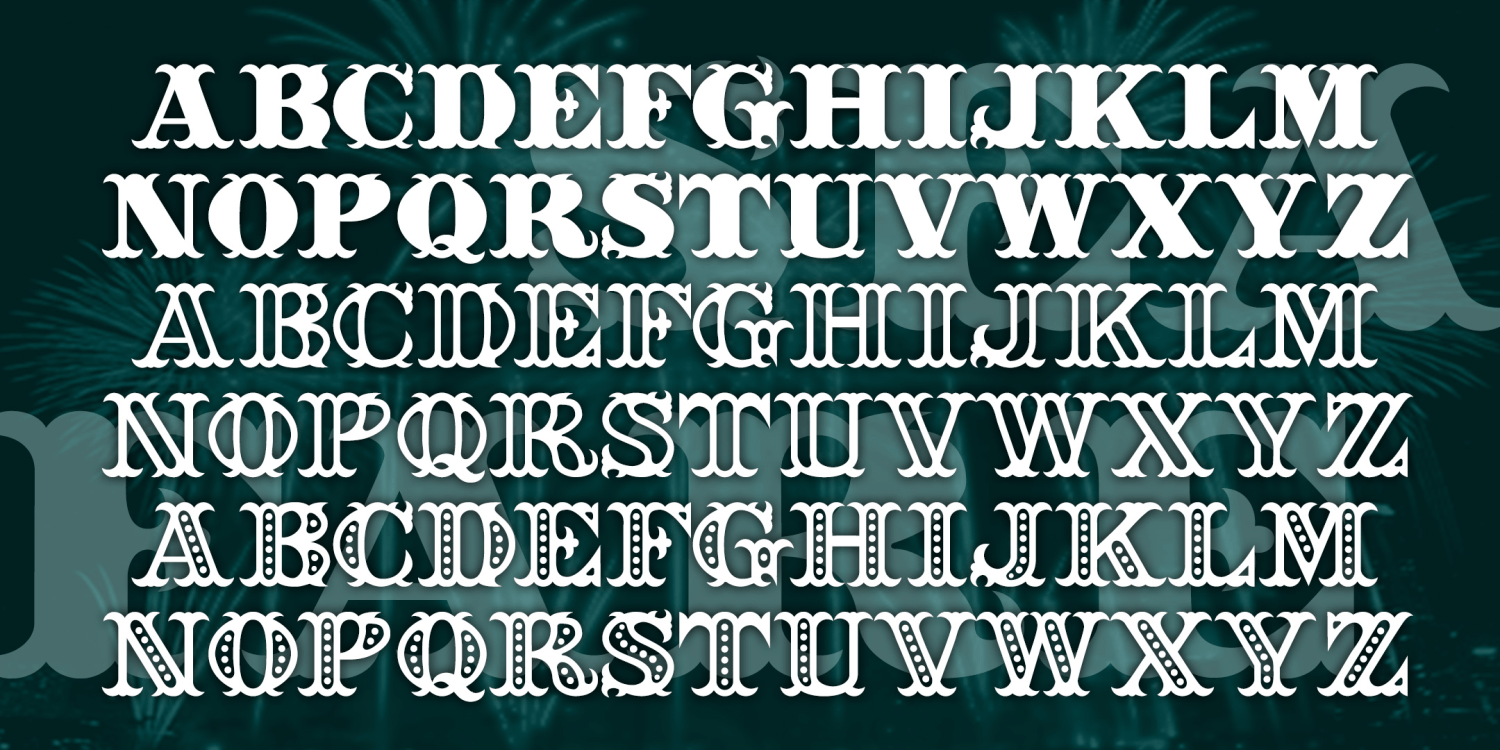
Seafare
SEAFARE is a jolly 19th-century style font. It's bold and decorative with a hint of sea waves, in solid, outline and beaded varieties that can be used separately or together. Seafare was inspired by the hand-lettered titles of Alfred Hitchcock's 1949 costume drama "Under Capricorn".
Seafare Solid
Seafare Outline
Seafare Beaded